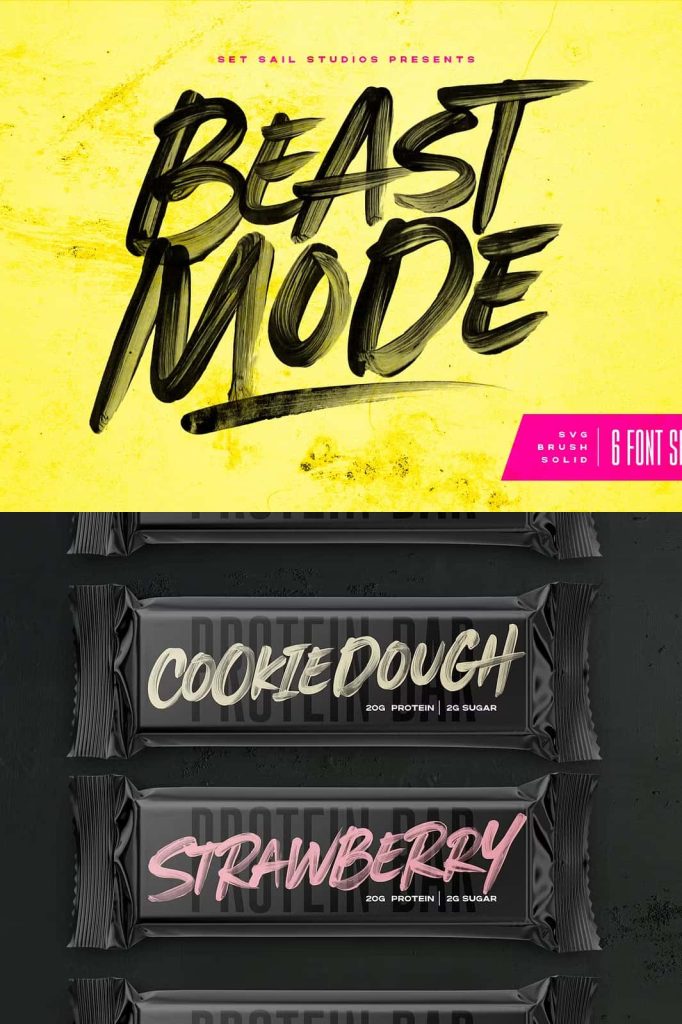
Beast Mode Font: A Bold All-Caps Brush Typeface with Real Paint Texture
Beast Mode delivers a powerful and expressive typographic experience through its bold, all-caps brush style. Designers who want to create strong visual impact turn to this font for its raw energy and authentic hand-painted character. Crafted using a real paintbrush and acrylic paint, Beast Mode captures the natural strokes, textures, and imperfections that bring designs to life.
This font does not rely on artificial effects. Instead, it preserves genuine brush textures within the letterforms, especially in its SVG version, where transparency reveals intricate paint details. As a result, every word feels dynamic, textured, and full of personality.
What Makes Beast Mode a Standout Brush Font?
Beast Mode stands apart from typical brush fonts because it embraces authenticity. Each letter showcases natural brush movement, uneven edges, and rich paint density. These features allow designers to create bold compositions that feel handcrafted rather than digitally constructed.
The all-caps format reinforces strength and consistency. It ensures that headlines, titles, and statements appear unified and impactful across various design formats.
Core Features of Beast Mode
- All-caps brush lettering for bold and consistent typography
- Hand-painted using real acrylic paint and brush strokes
- Built-in realistic paint textures for authentic appearance
- SVG version with transparency for advanced visual detail
- Strong visual presence for high-impact design projects
The Power of SVG Brush Fonts
The SVG version of Beast Mode elevates typography by embedding real paint textures directly into the font. Unlike standard vector fonts, SVG fonts preserve color variations, brush strokes, and transparency. This feature allows designers to achieve a level of realism that traditional fonts cannot replicate.
When you use Beast Mode in its SVG format, you gain access to detailed textures that respond beautifully in digital environments. This capability makes it ideal for modern design workflows that demand both authenticity and flexibility.
Advantages of Using SVG Fonts
- Retain realistic textures and color variations
- Enhance visual depth without additional graphic effects
- Create more engaging and expressive typography
- Streamline workflow by reducing the need for overlays
Best Use Cases for Beast Mode Font
Designers use Beast Mode to create attention-grabbing visuals that demand strong presence. Its bold brush style makes it particularly effective in projects that require energy, movement, and personality.
This font performs exceptionally well in creative industries where visual storytelling matters. Its handcrafted aesthetic adds authenticity and emotion to every design.
Ideal Applications
- Posters and promotional graphics that require bold statements
- Branding projects with a raw, energetic identity
- Social media content that needs to stand out instantly
- Album covers, merchandise, and streetwear designs
- Packaging that emphasizes creativity and uniqueness
How to Use Beast Mode Effectively
To maximize the impact of Beast Mode, designers should focus on contrast and composition. Pair this bold brush font with clean and simple typefaces to balance the overall design. This approach ensures readability while allowing Beast Mode to remain the focal point.
Use ample spacing around text to highlight the texture and movement within each letter. Avoid overcrowding the layout, as the font’s detailed strokes need room to breathe. When used thoughtfully, Beast Mode transforms simple text into a compelling visual statement.
Design Tips
- Combine with minimal sans-serif fonts for contrast
- Use large sizes to showcase brush details clearly
- Apply on dark or textured backgrounds for stronger impact
- Limit usage to headlines to maintain clarity
Beast Mode brings boldness, texture, and authenticity into modern typography. Its all-caps brush style, combined with real paint textures and advanced SVG capabilities, makes it a powerful tool for designers who want to create memorable visuals. By using Beast Mode, you can add energy, depth, and a handcrafted feel to your creative projects.
This font does more than display words. It creates an experience that captures attention and leaves a lasting impression.